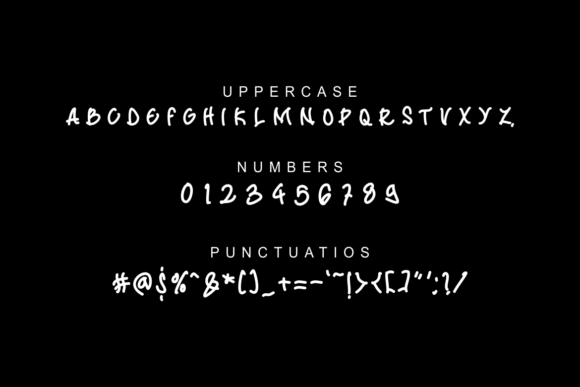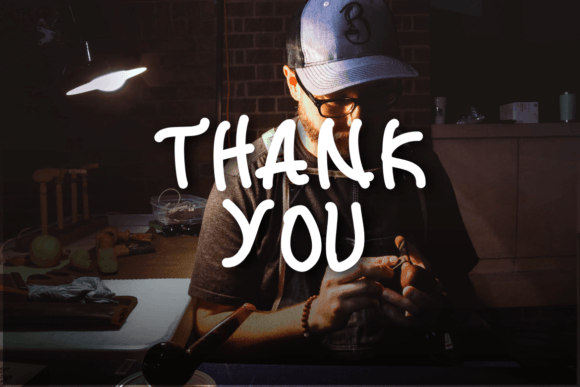
Akagami Font
About Akagami Font
Akagami is a fun and whimsical handwritten font. Playful and a bit quirky, this font will brighten up each of your designs. Add it confidently to your projects, and you will love the results.